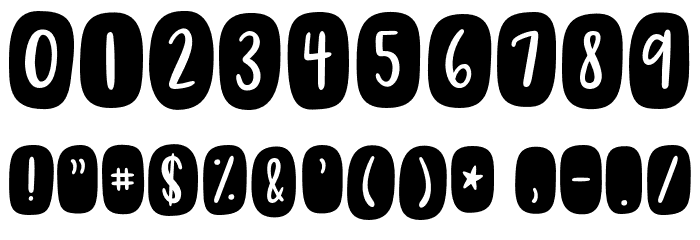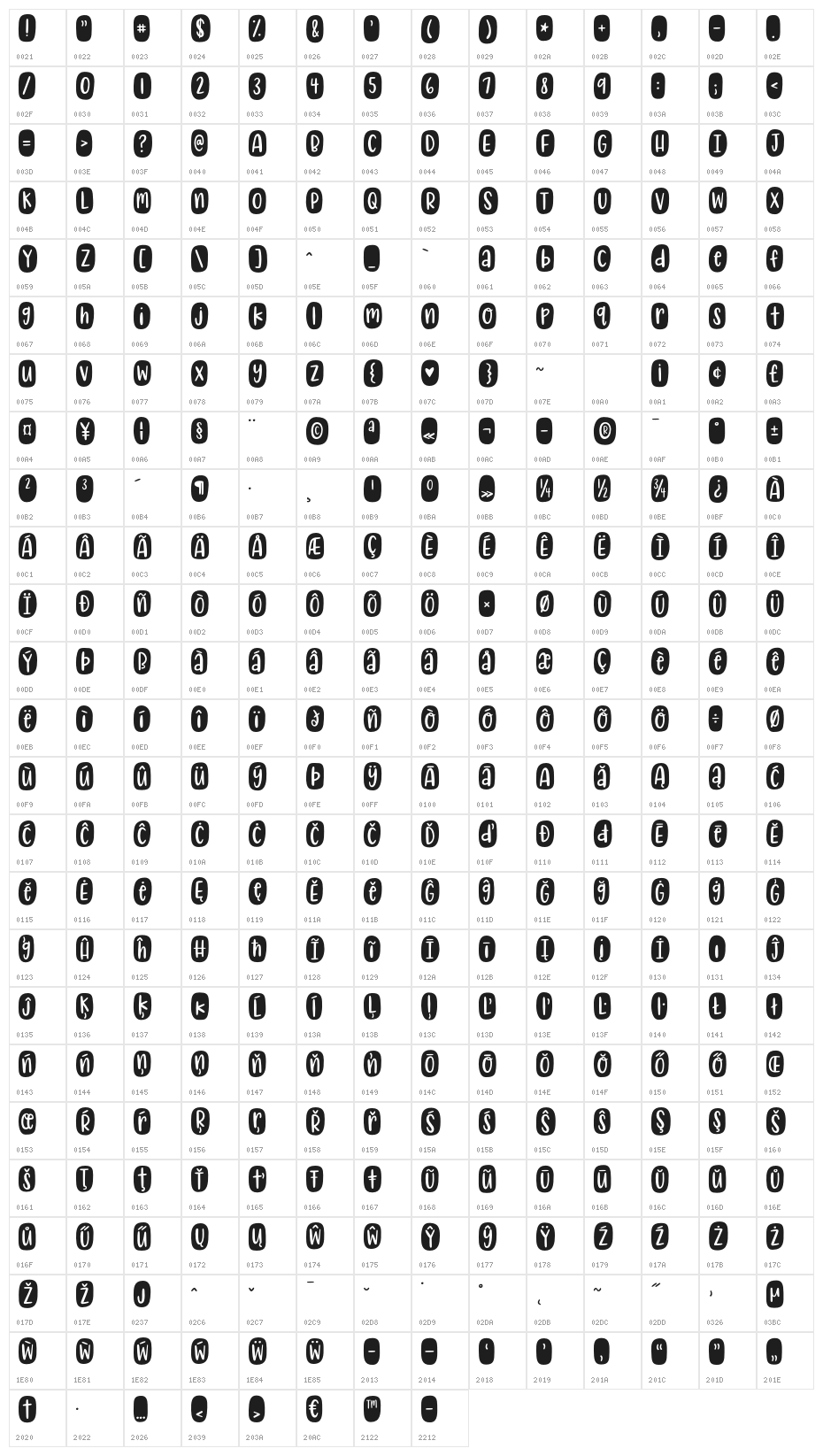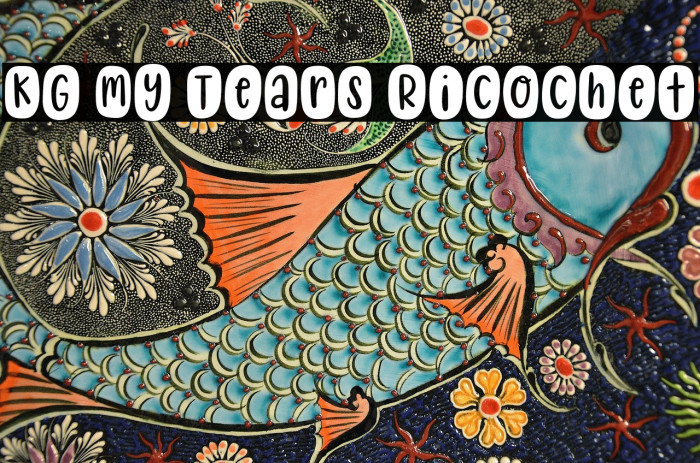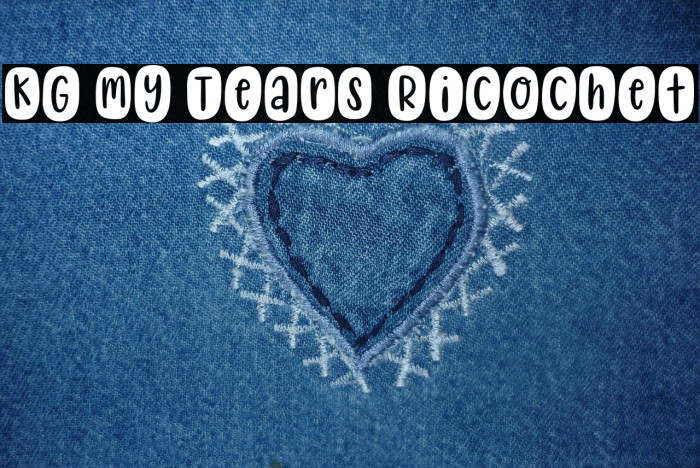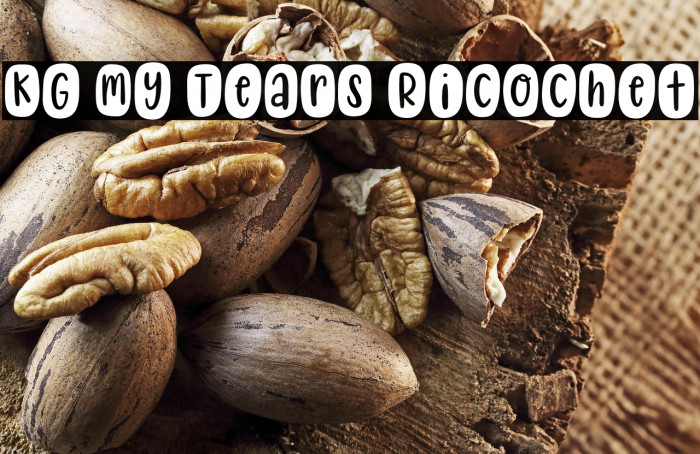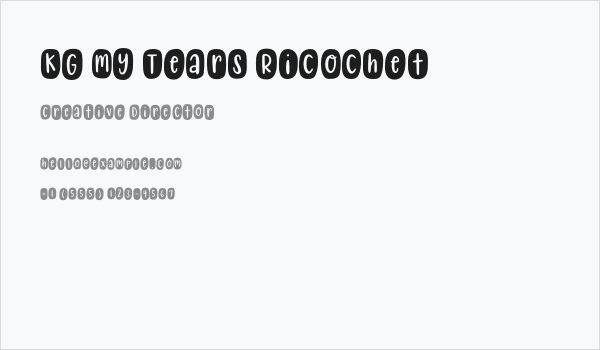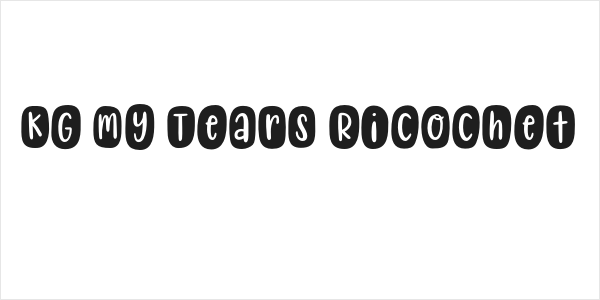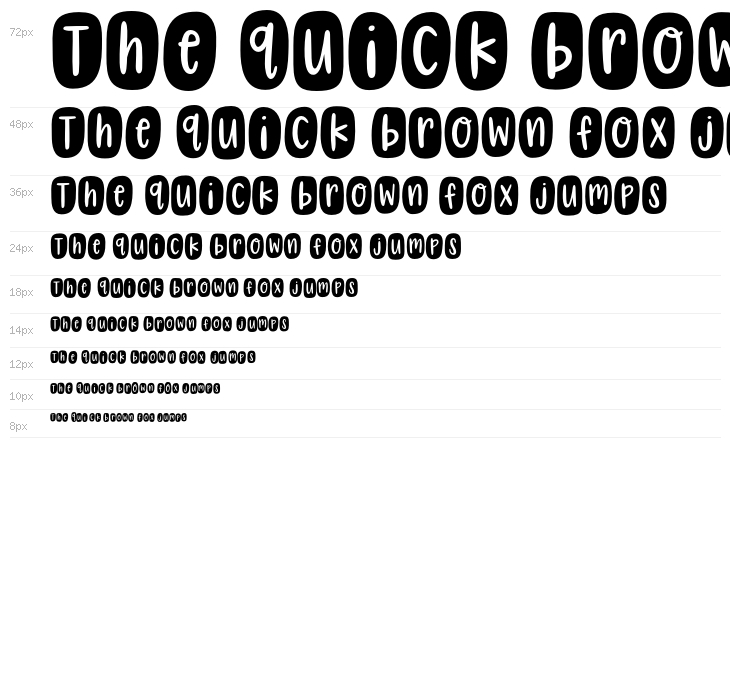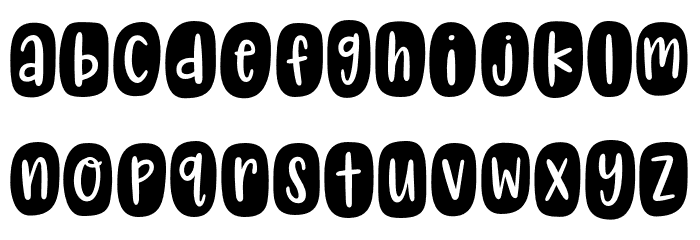
KG My Tears Ricochet Font
KG My Tears Ricochet Description
This playful and whimsical font features bold, rounded characters with a hand-drawn feel. Each letter is enclosed in a solid black oval shape, creating a striking contrast between the white letterforms and their backgrounds. The font exudes a casual and friendly vibe, making it suitable for projects that require a touch of personality and charm. The uppercase and lowercase letters maintain consistent styling, while the numerals and special characters follow the same design principles, ensuring a cohesive look across all text elements.